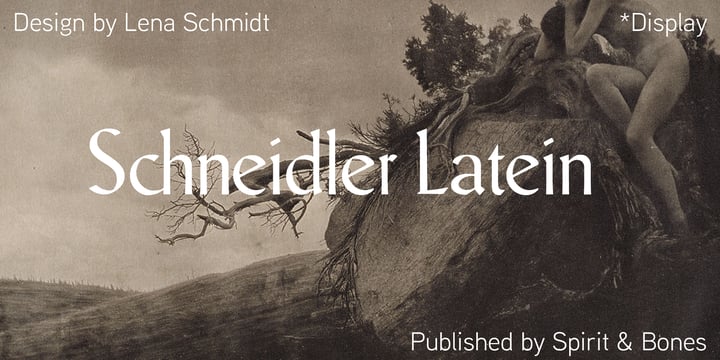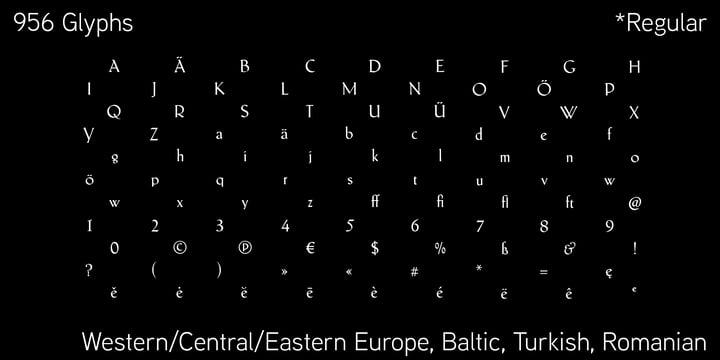
Schneidler Latein
von Spirit & Bones
Die Schriftfamilie Schneidler Latein wurde von F. H. Ernst Schneidler, Lena Schmidt entworfen und von Spirit & Bones veröffentlicht. Schneidler Latein enthält 9 Stile und Familienpaketoptionen.
The Schneidler Latein is a sharp and elegant Antiqua based on the ductus of the broad edged pen with a strong character. Running perfectly in paragraph text giving it something quite special and being effortlessly legible at the same time, Schneidler Latein works great in headings as well. Each glyph is a piece of art ready to be used in branding and blowup combining beauty and personality. It is absolutely new to the digital world as it never has been digitized before. This new version digitized, further developed and extended by artist and graphic designer Lena Schmidt comes in nine styles from which there are four application-related ones like Subtext and Display and five weight-related ones like Bold and Heavy. Each style contains 948 glyphs, variations of numbers, three stylistic sets one preserving the historic forms of changed characters, small caps, open type features and superior and inferior characters. Designed by F. H. Ernst Schneidler the Schneidler Latein was released in 1916, the bold version in 1920 and the italics in 1921. Schneidler was born in 1882 in Berlin. He studied at the school for applied arts in Düsseldorf with professor F. H. Ehmcke and P. Behrens. He was as a painter, graphic designer and illustrator. In 1920 he was appointed as teacher in the school for applied arts Stuttgart. His students were Albert Kapr, Imre Reiner and Lilo Rasch-Naegele among others. Further well-known fonts from his hands are for example Legende, Amalthea, Schneidler Mediävel and Schneidler Antiqua. Lena Schmidt was born 1981 in Bremen. She is a german painter, graphic designer and illustrator mostly known for her huge wood carving paintings. From 2003 to 2011 she studied Fine Arts in Hamburg with professor Matt Mullican. From 2015 to 2019 she studied graphic design with a focus on type design at HAW Hamburg Department Design with professor Jovica Veljović. She lives and works in Hamburg, Germany.
Designer: F. H. Ernst Schneidler, Lena Schmidt
Herausgeber: Spirit & Bones
Foundry: Spirit & Bones
Eigentümer des Designs: Spirit & Bones
Über Spirit & Bones
Spirit & Bones is a distinguished foundry located in Hamburg, established in 2021 by the talented artist and type designer Lena Schmidt. Lena's journey began with her studies in Fine Arts in Hamburg under the guidance of professor Matt Mullican, followed by a specialization in graphic design with a focus on type design, mentored by the renowned type designer and calligrapher Jovica Veljović. The inception of Spirit & Bones marks Lena's commitment to a profound and enduring exploration of the captivating realm of type design. This foundry is dedicated to creating unique typefaces that blend artistic expression with functional design, catering to a diverse range of industries and users who appreciate the art of typography. With a focus on innovation and quality, Spirit & Bones stands out for its artistic vision and dedication to the craft of type design.